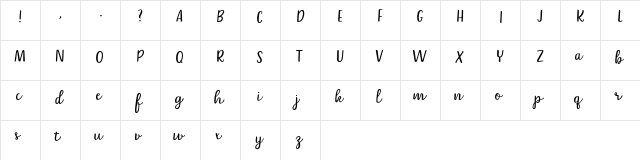
Belle-Helene-DEMO Script
| Style | Script |
| Foundry | Studio Indigo |
| Designer | Helena Ohman |
Design Context for Belle-Helene-DEMO Typeface
Belle-Helene-DEMO flows with the natural rhythm of handwritten lettering, making it ideal for designs that call for warmth and personal expression.
Font Pairing: Combine Belle-Helene-DEMO with a simple geometric sans for maximum contrast — the tension between flowing curves and clean structure is a classic typographic pairing.
Pro Tip: Pair Belle-Helene-DEMO with a clean sans-serif for supporting text. The contrast between fluid script and geometric structure creates an elegant typographic hierarchy.